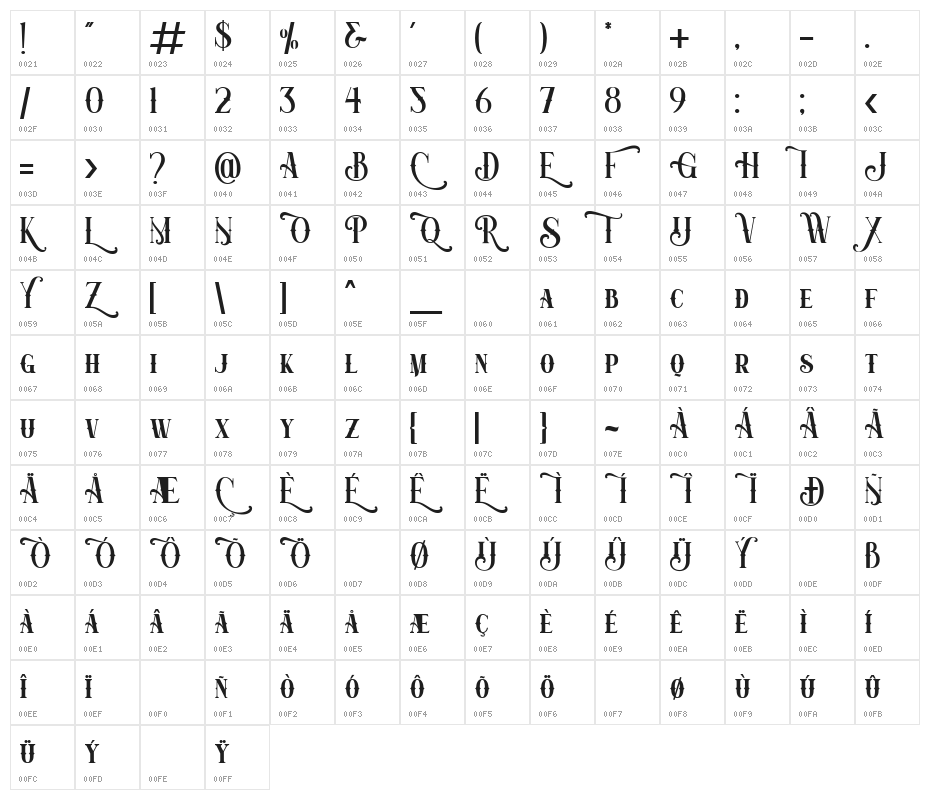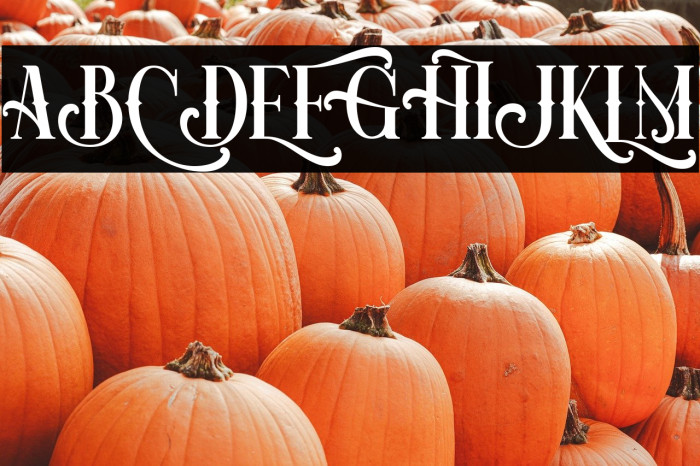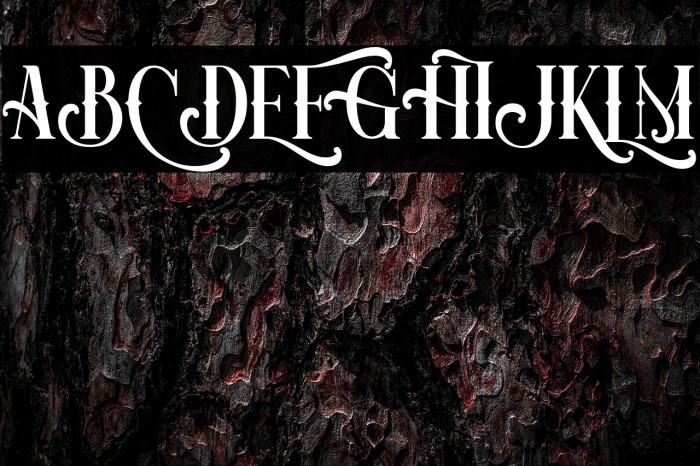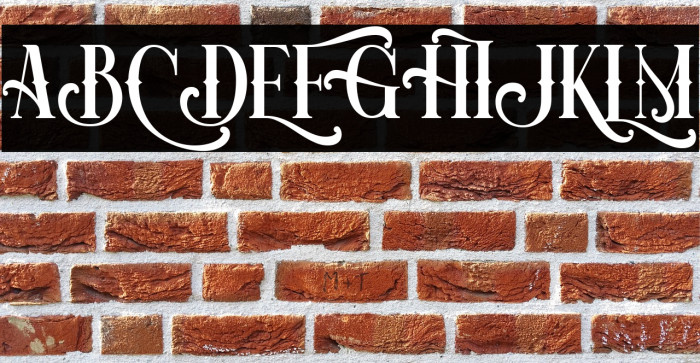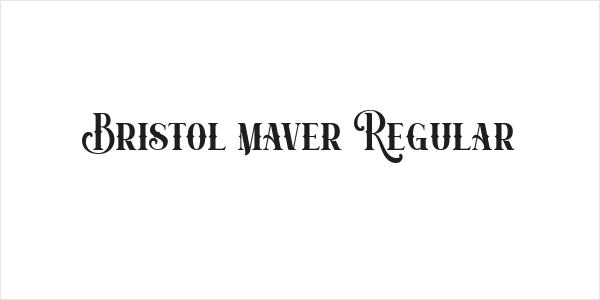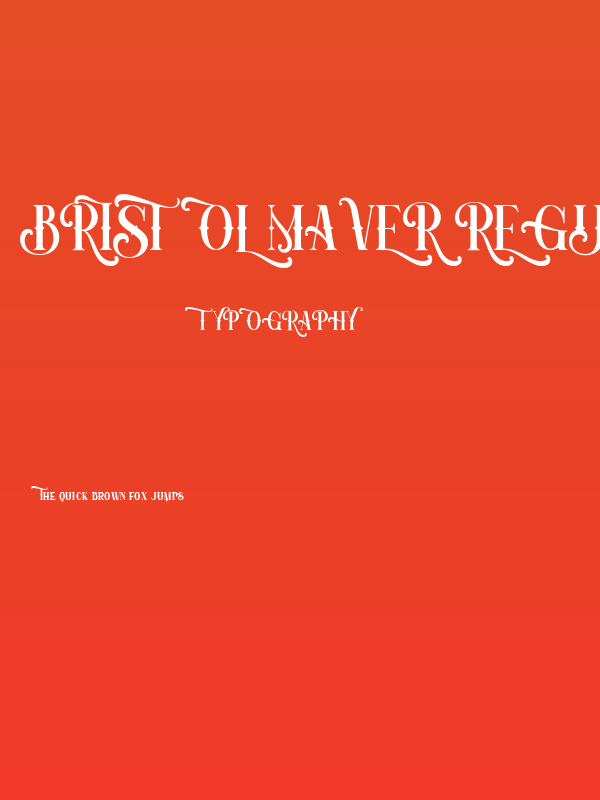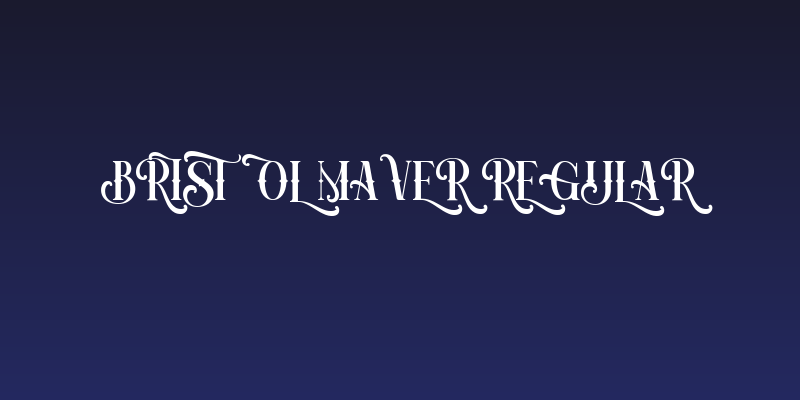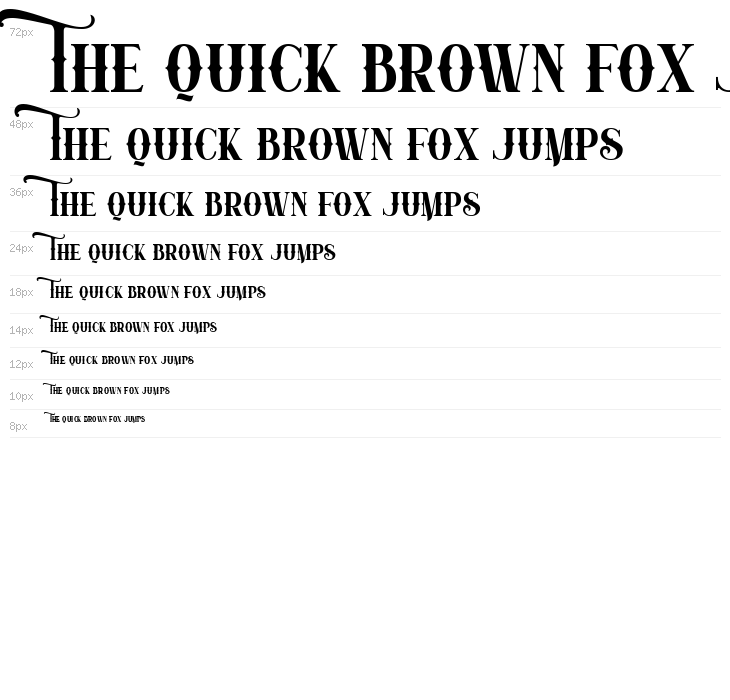
Bristol maver Regular Font
Bristol maver Regular Description
This font features a bold and decorative style with elaborate swashes and flourishes that give it a distinctive and ornate appearance. The uppercase letters are particularly embellished, with intricate curves and extensions that add a sense of elegance and drama. The lowercase letters maintain a more straightforward design but still carry a sense of sophistication. The numerals and special characters are consistent with the overall decorative theme, making them suitable for attention-grabbing designs. This font is ideal for projects that require a touch of vintage charm and artistic flair.
| Overall Style | Vintage, Decorative |
| Proposed Projects | Ideal for wedding invitations, vintage posters, branding, and logo design where a touch of elegance and drama is desired. |